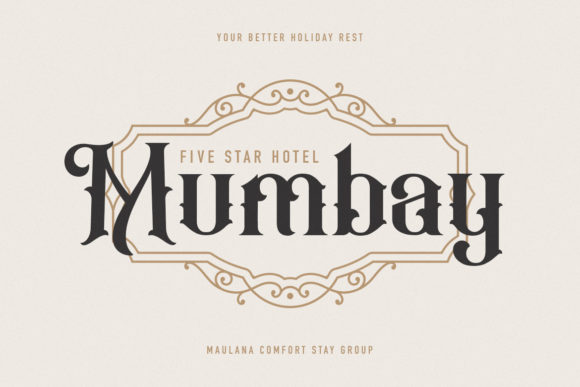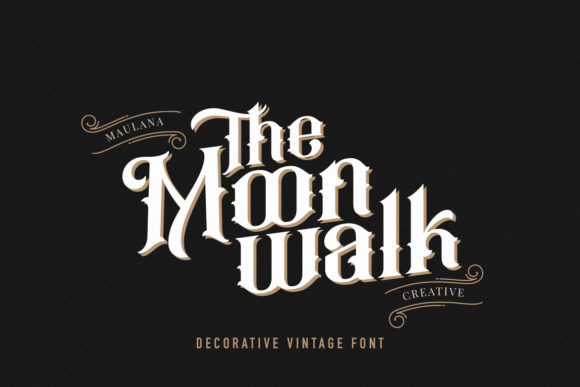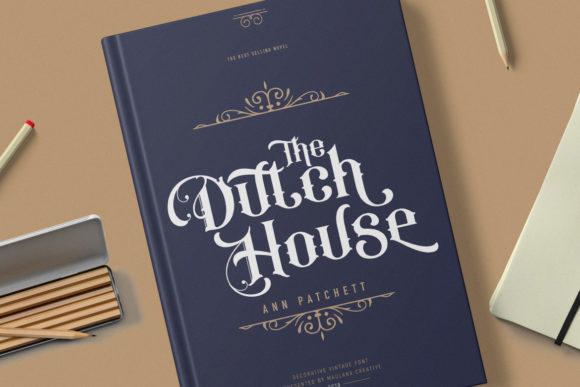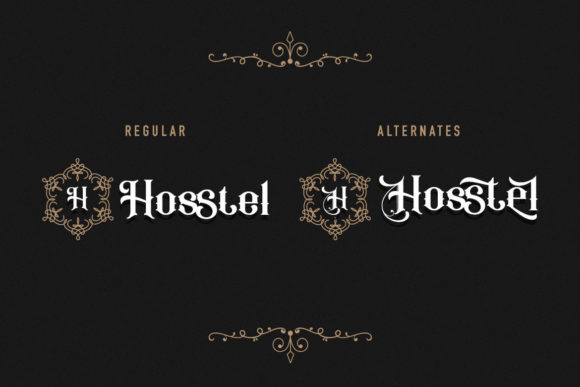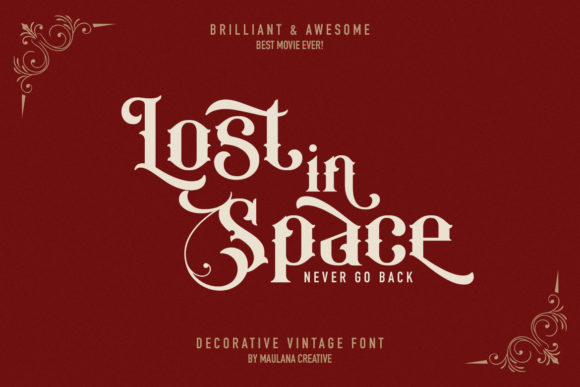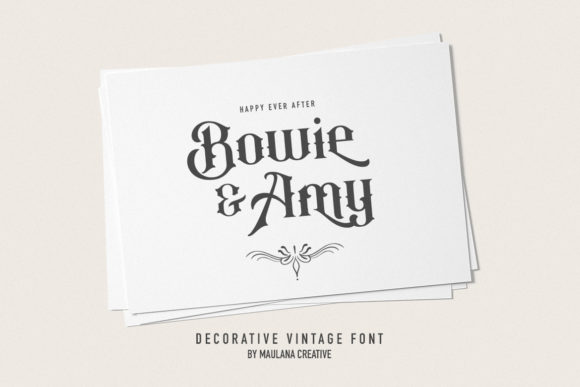
A Love Letter to Victorian Typography
You know that feeling when you stumble upon a vintage typewriter or an old book, and suddenly, you’re transported to a bygone era? That’s exactly what happens when you look at the Anthique Font. This stunning typographic creation is a beautiful homage to Victorian handlettering, expertly blending modern and classic typography with a touch of elegance.
As a designer, you’re always on the lookout for unique fonts that can add a touch of personality to your projects. The Anthique Font is a valuable addition to any designer’s toolkit, offering a range of stylish alternates that can help you create stunning visuals. Whether you’re working on a vintage-inspired project or simply want to add some sophistication to your designs, this font is sure to inspire.
Key Features of Anthique Font
- Size: The font family includes multiple weights, ranging from Thin (100) to Extra Bold (800), offering a wide range of design possibilities.
- Resolution: Designed for high-resolution displays, making it suitable for use on modern devices and printing applications.
- Unique Characteristics: Distinctive, elegant script style with subtle flair and flair, perfect for adding a touch of sophistication to designs.
- Legibility: Highly legible, even at smaller font sizes, ensuring that your text remains clear and easy to read.
- Language Support: Supports a wide range of languages, including Latin, Cyrillic, and Greek scripts, making it a versatile choice for global designs.
Review of Anthique Font
Overall, I was quite impressed with the Anthique Font, but as with any font, it has its strengths and weaknesses. Here’s my honest take:
- Unique character: The Anthique Font has a distinct, elegant feel to it that’s perfect for adding a touch of sophistication to designs.
- Good for titles and headings: The font’s bold, ornate style makes it well-suited for use in titles and headings.
- High-resolution quality: The font renders beautifully at high resolutions, making it perfect for use in print or digital designs.
- Limited legibility: The font’s ornate style can make it difficult to read at smaller sizes, especially in body text.
- Not suitable for large blocks of text: Due to its decorative nature, the font is best used in small doses, rather than for large blocks of text.
- May require adjustments: Depending on the design, you may need to adjust the font size, line height, or spacing to ensure it looks its best.
In conclusion, the Anthique Font is a beautiful, elegant font that’s perfect for adding a touch of sophistication to designs. While it has its limitations, it’s well-suited for use in titles, headings, and small blocks of text. With careful use and adjustment, it can add a unique and eye-catching element to your designs.
Tips for Getting the Most Out of Antique Font
Use Antique Font for vintage-inspired designs, such as invitations, posters, and social media graphics.
Combine Antique Font with other distressed or vintage fonts for a unique and eclectic look.
Experiment with different font sizes and colors to create a visually appealing contrast.
Antique Font is commonly used for:
1. Vintage-inspired designs.
2. Wedding invitations and station
Alternatives to Anthique Font
Great Vibes is a beautiful script font that’s perfect for creating elegant and sophisticated designs. It’s ideal for wedding invitations, branding, and other high-end projects. Compared to Anthique Font, Great Vibes has a more refined and polished look, making it suitable for formal events.
Carolyna Pro is a modern calligraphy font that’s great for creating unique and eye-catching designs. It’s perfect for fashion, beauty, and lifestyle brands, as well as for creating invitations and event materials. Unlike Anthique Font, Carolyna Pro has a more dynamic and expressive feel, making it suitable for trendy and creative projects.
Q: What is the recommended font size and line height for Antique Font?
The recommended font size for Antique Font is between 10-24 points, depending on the design context. A line height of 1.2-1.5 times the font size is generally suitable for optimal readability. You can adjust these settings according to your design preferences and the specific requirements of your project.